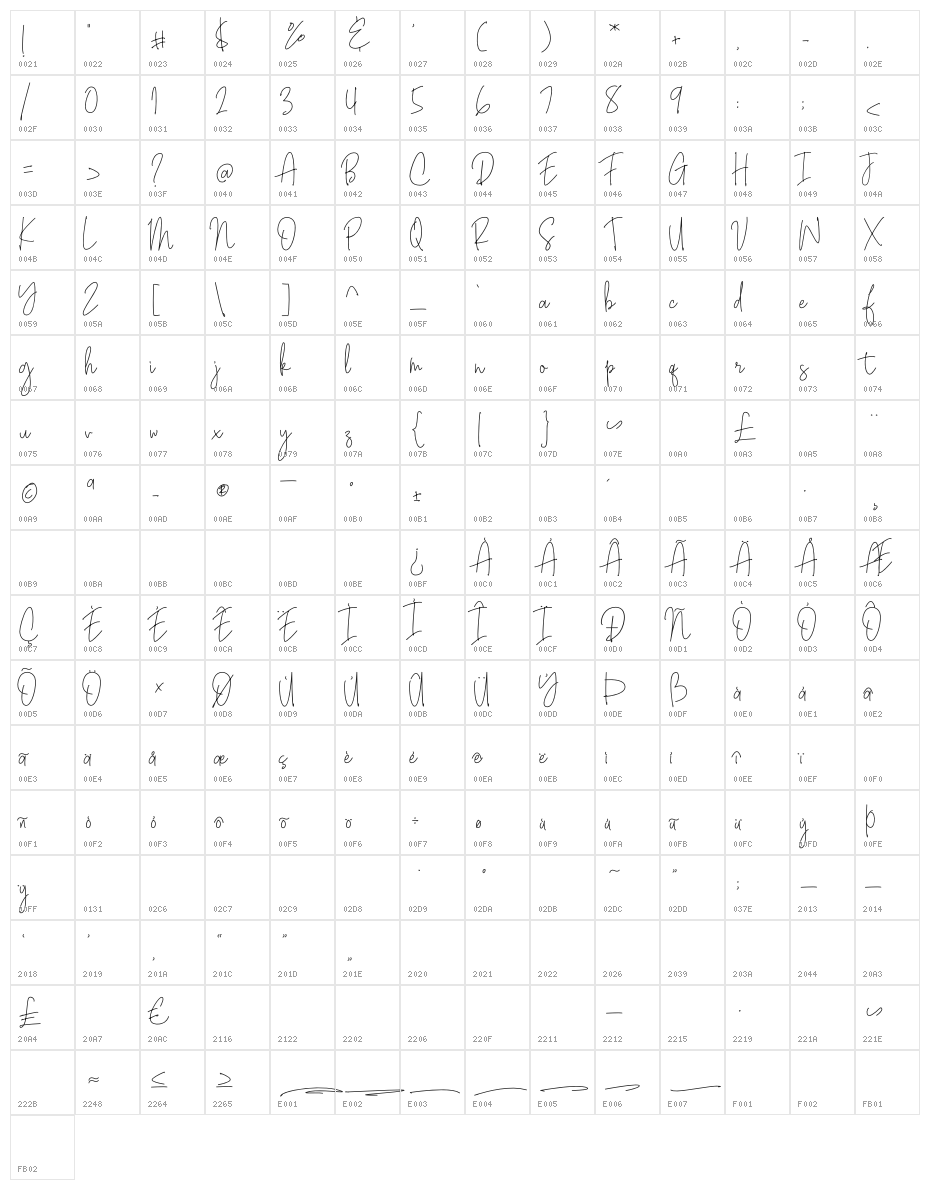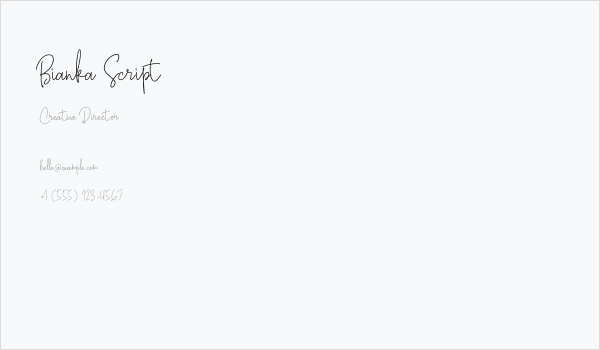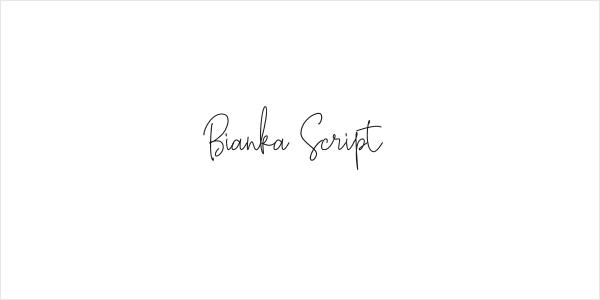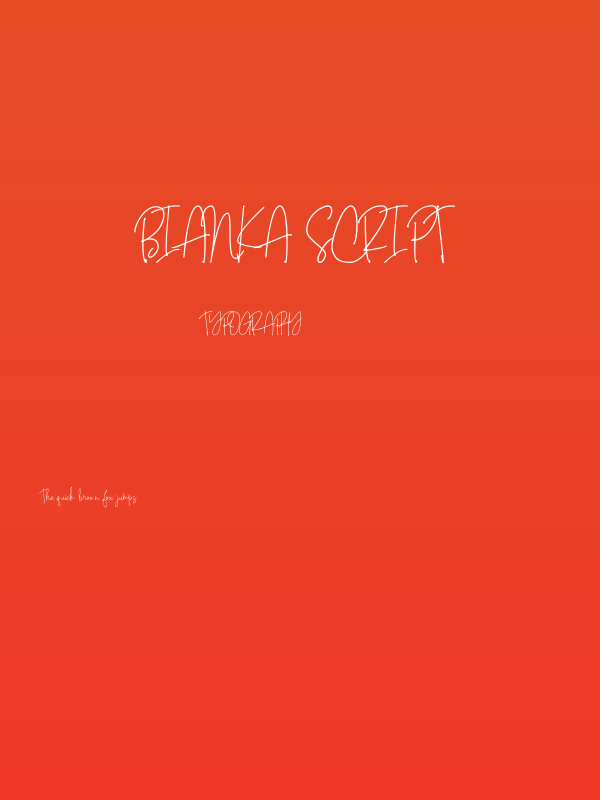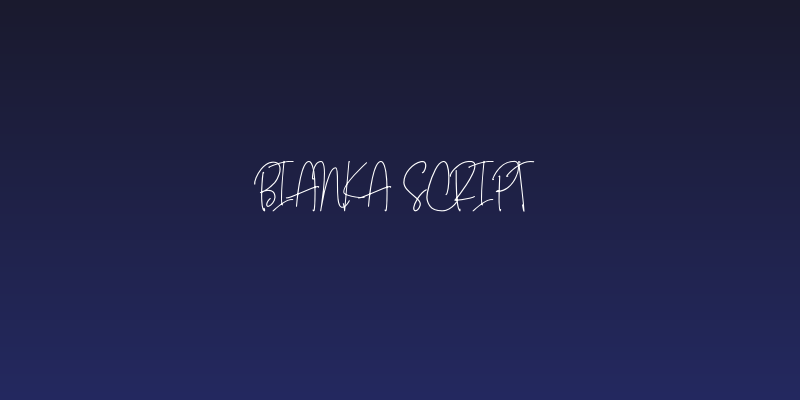
Bianka Script Font
Bianka Script Description
This font features a lively and flowing script style, characterized by its elegant and elongated letterforms. The strokes are smooth and continuous, giving it a handwritten appearance that is both casual and sophisticated. The uppercase letters are tall and slightly narrow, while the lowercase letters maintain a consistent flow with subtle loops and curves. Numbers and special characters are designed to complement the overall script style, maintaining the same fluidity and grace. This font is perfect for projects that require a personal touch or a sense of elegance.
| Overall Style | Elegant, Handwritten |
| Proposed Projects | Ideal for wedding invitations, greeting cards, personal branding, and elegant packaging designs. |